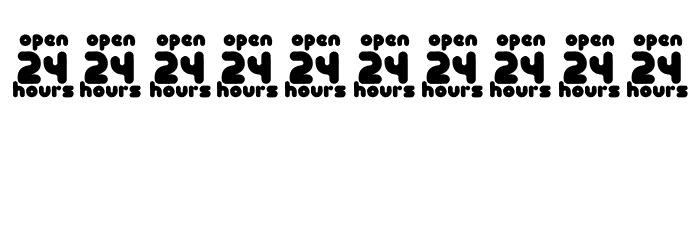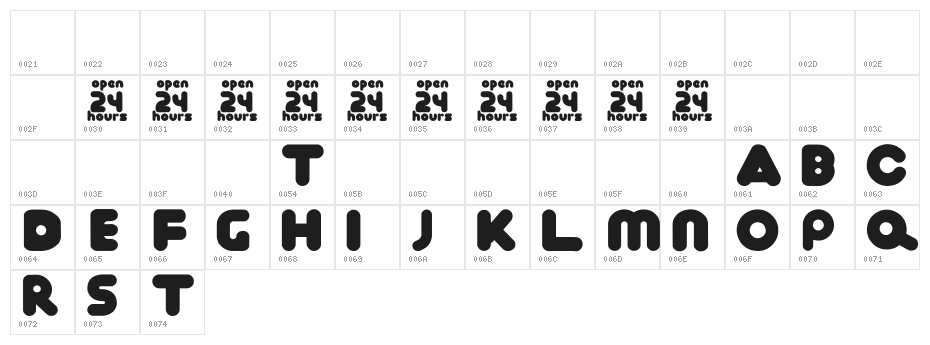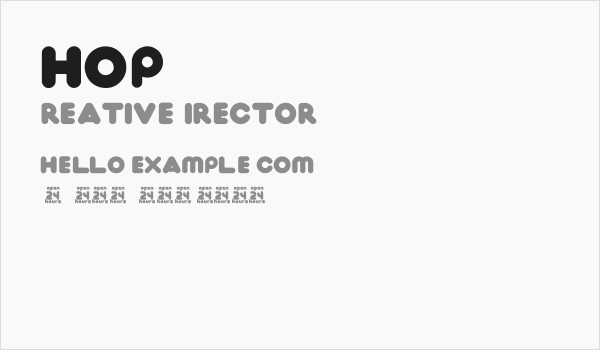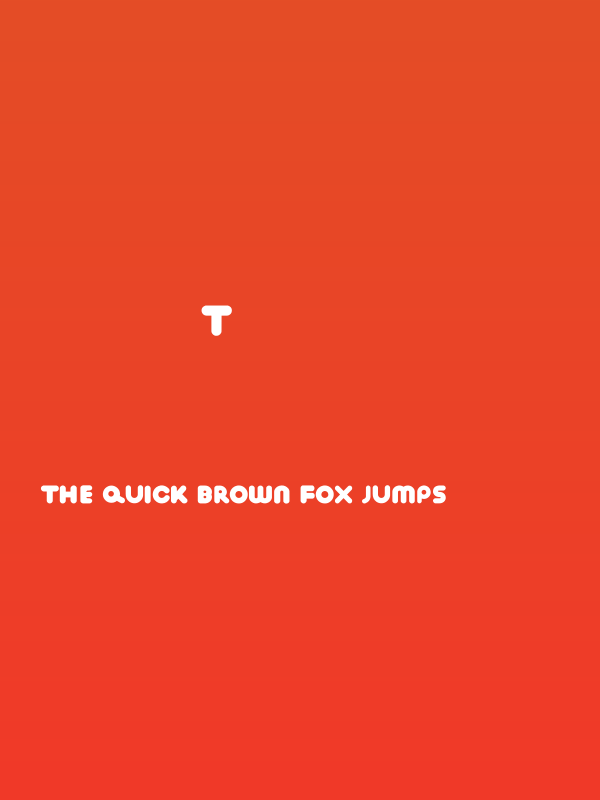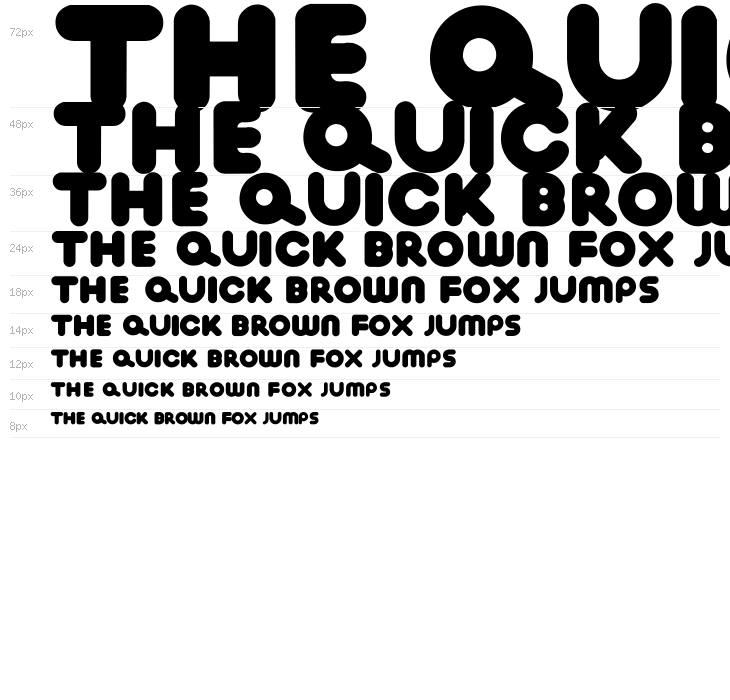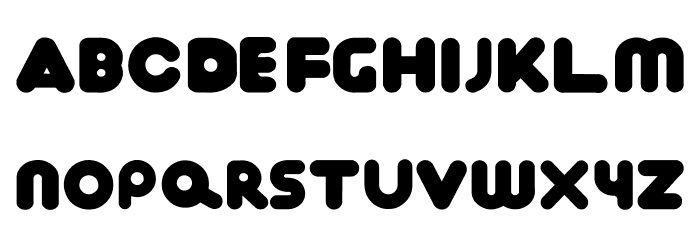
Ihop Font
Ihop Description
This font features a bold and rounded style with a playful and modern aesthetic. The characters are thick and have a smooth, uniform stroke width, giving them a strong presence. The rounded edges and lack of sharp angles contribute to a friendly and approachable feel. The uppercase and lowercase letters maintain a consistent style, with the lowercase letters being slightly more compact. The numbers and special characters follow the same design principles, ensuring a cohesive look across all elements. This font is ideal for creating eye-catching headlines and logos that require a bold statement.